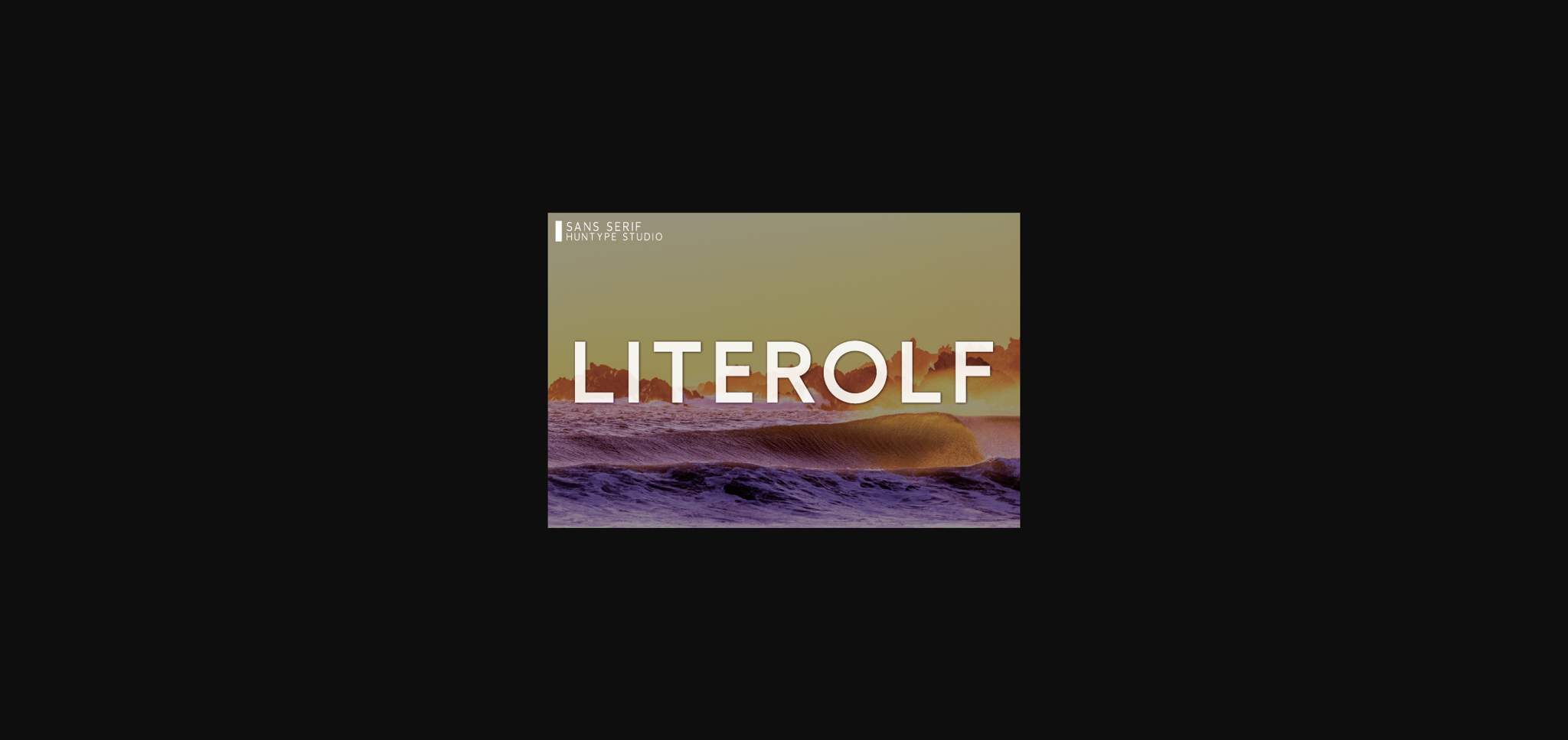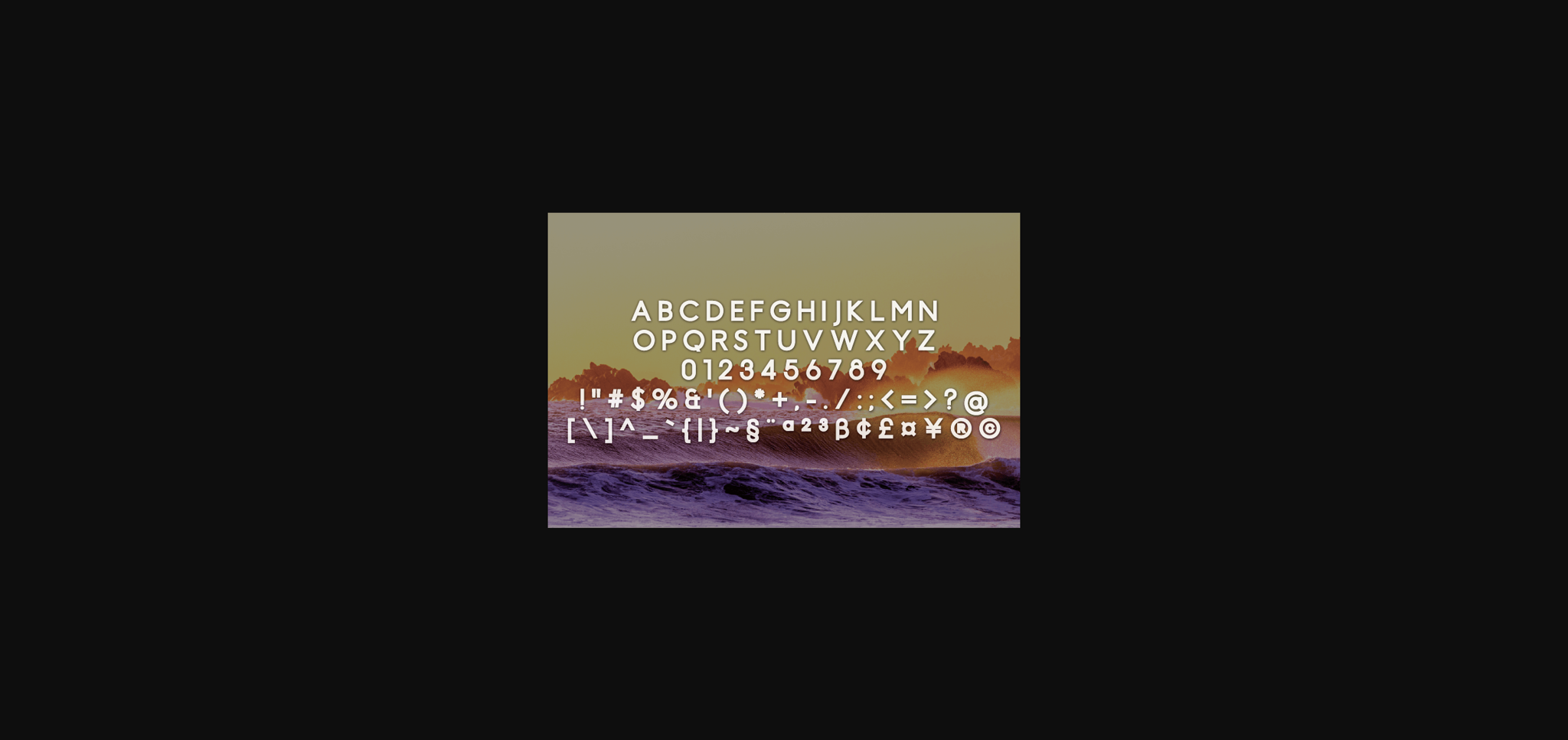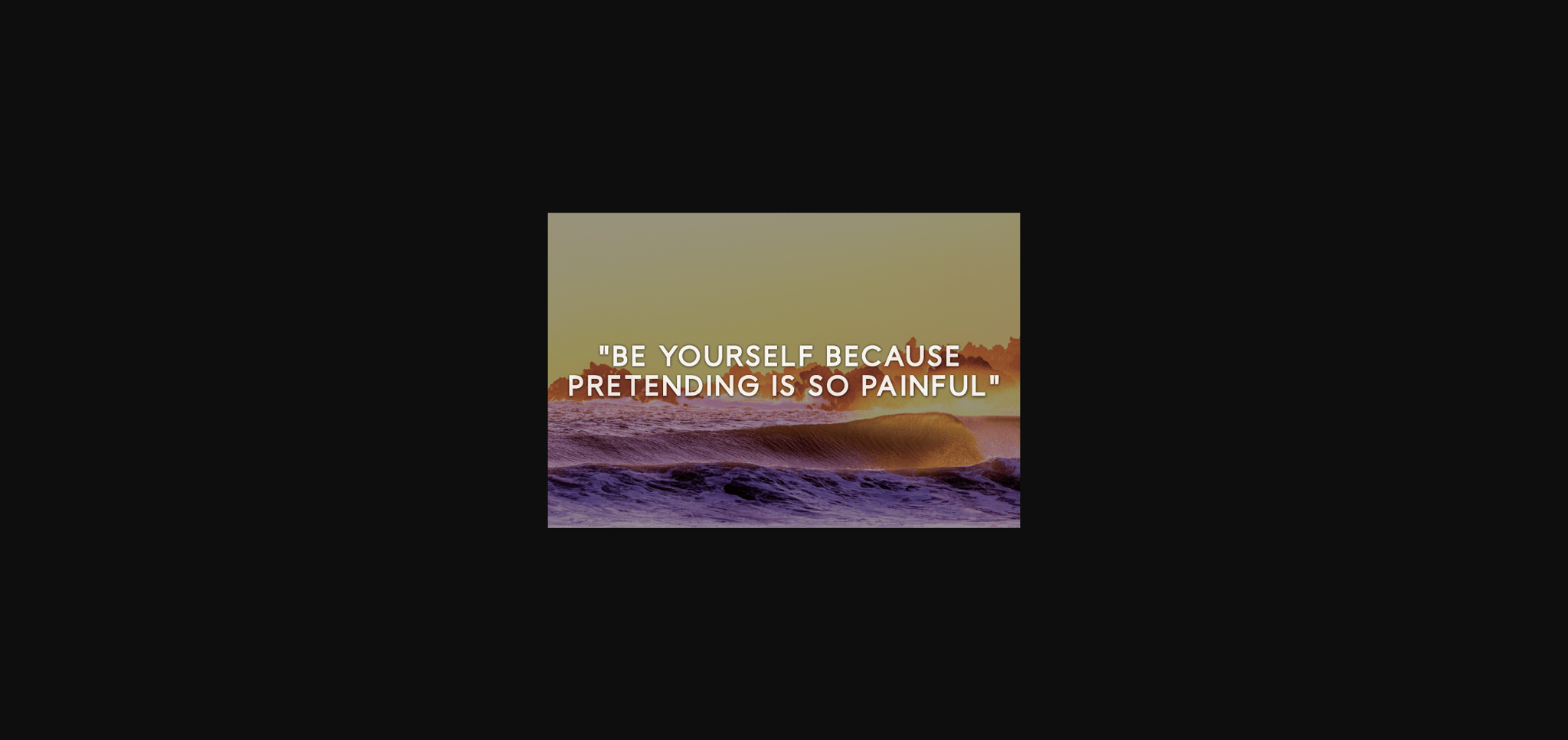
Literolf Font
About Literolf Font
Literolf is a simple and versatile sans serif font. With smooth and clean lines, this font works beautifully for logos, branding, and web headings.